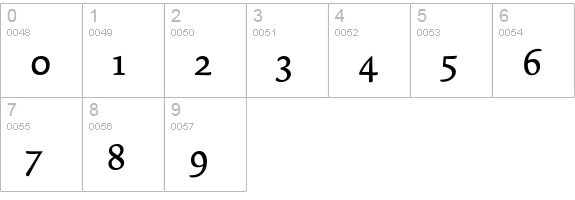
Dolly-Roman Font Details
Dolly-Roman font is a timeless and elegant typeface that exudes sophistication and charm. Its graceful curves and classic serifs make it a versatile choice for a wide range of design projects, from invitations to branding to editorial layouts. The Dolly-Roman font is the perfect blend of traditional and modern, offering a touch of refinement to any composition. Best of all, this exquisite font is available for free download at FontsMarket.com. Whether you're a graphic designer, a business owner, or a creative enthusiast, you can add Dolly-Roman to your font collection without any cost. Elevate your designs with this beautiful and versatile typeface today!